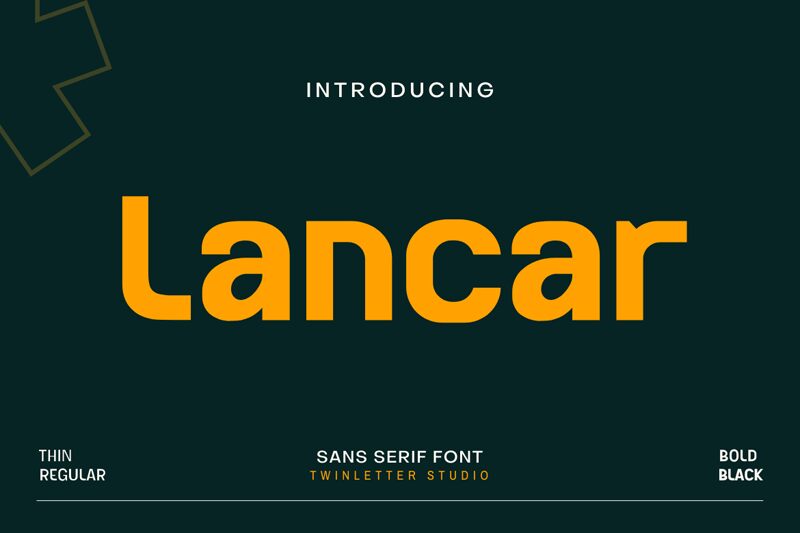
Lancar Black is a sleek and modern sans serif font designed by twinletter. With its semi-bold weight and semi-expanded width, it offers a confident and sophisticated look that's perfect for various design projects. Whether you need a bold display font for headlines or a clean typeface for body text, Lancar Black has got you covered. Its versatility makes it suitable for branding materials, packaging designs, editorial layouts, and website designs. Its geometric shapes and sharp edges also make it an excellent choice for tech-related projects such as app interfaces or digital products. Get creative with Lancar Black today!
Lancar Black